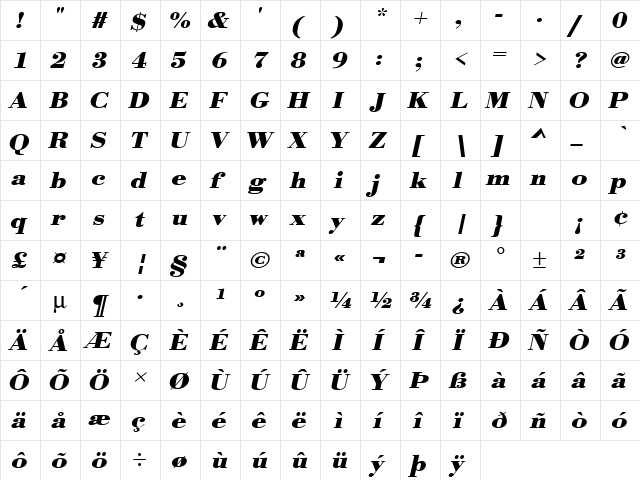
URWBodoniTExtWid Bold Oblique
Design Context for URWBodoniTExtWid Typeface
URWBodoniTExtWid offers clean, dependable letterforms without strong stylistic allegiance, making it a practical choice for designers who need flexibility. The slanted form adds forward momentum and visual energy. The heavy weight commands attention and anchors typographic hierarchies.
Pro Tip: Use URWBodoniTExtWid for emphasis, pull quotes, and subheadings where its slanted energy can add rhythm to the layout.